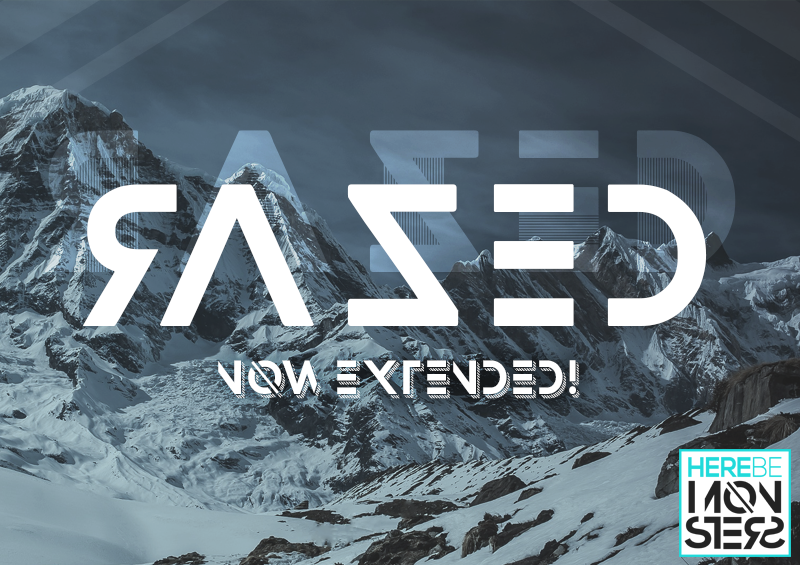
Font name: | Razed |
Author: | Here Be Monsters |
The font, Razed (pronounced raised), gets its name from “erased” due to it’s minimalist approach to character design. The dictionary definition of “raised” is “more intense or stronger than usual; higher”. A modern, contemporary font for graphic design! FOR PERSONAL USE ONLY. For licensing visit: http://www.monsterswithin.com - Big Minion |